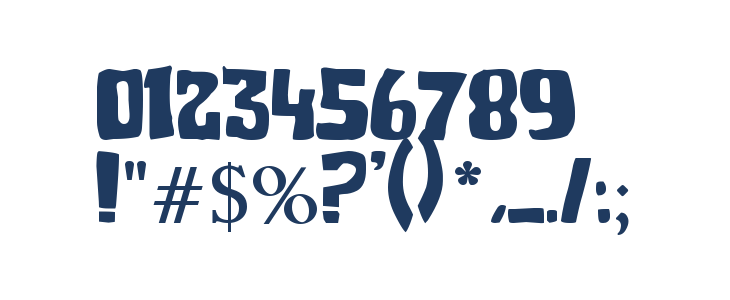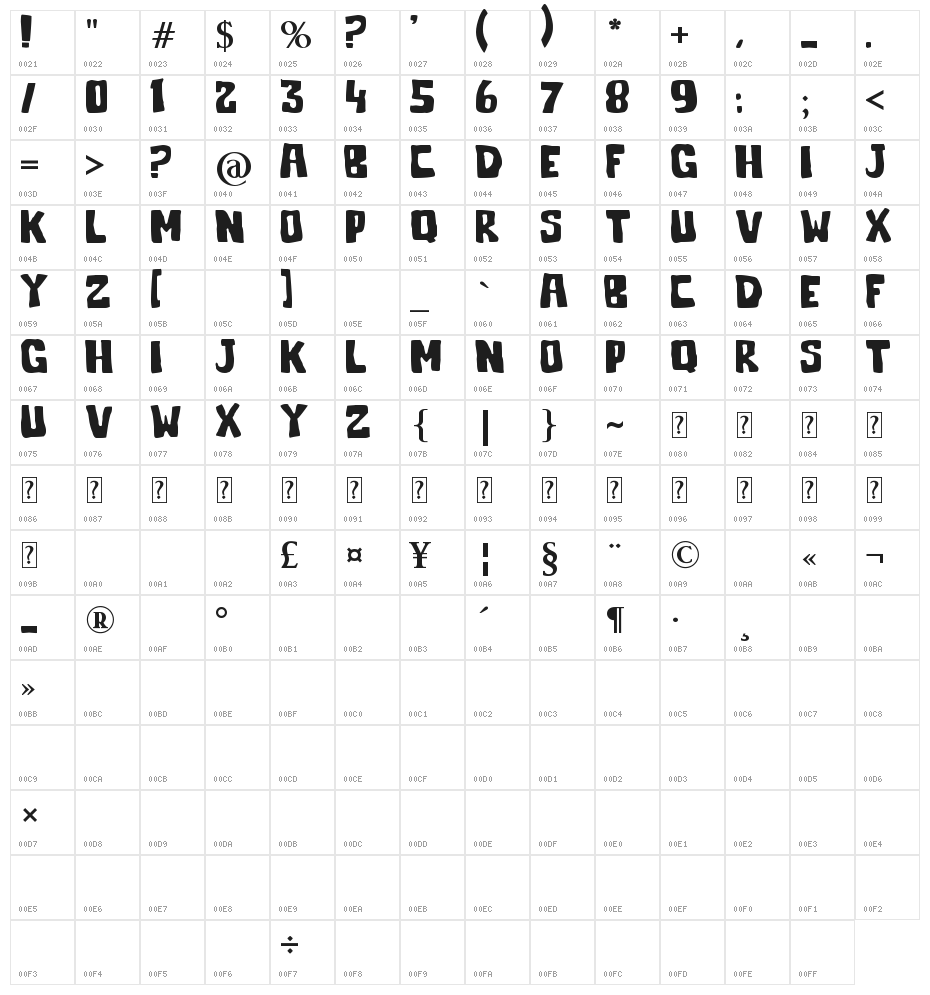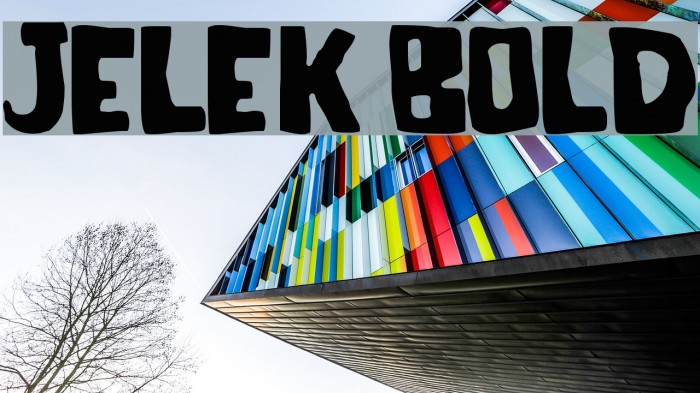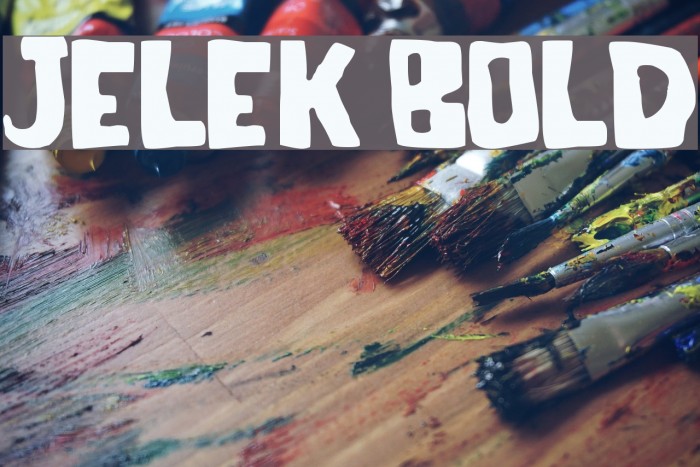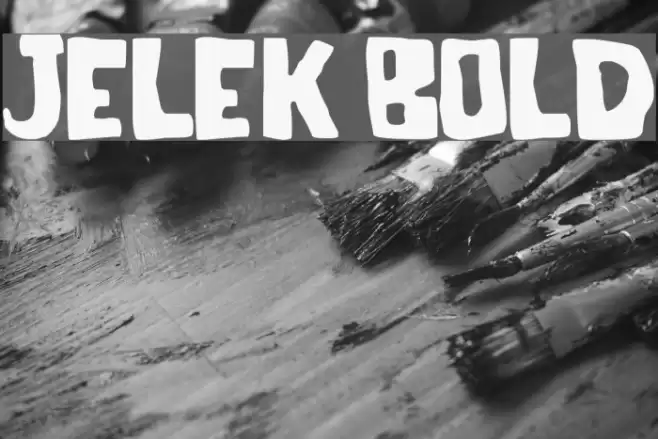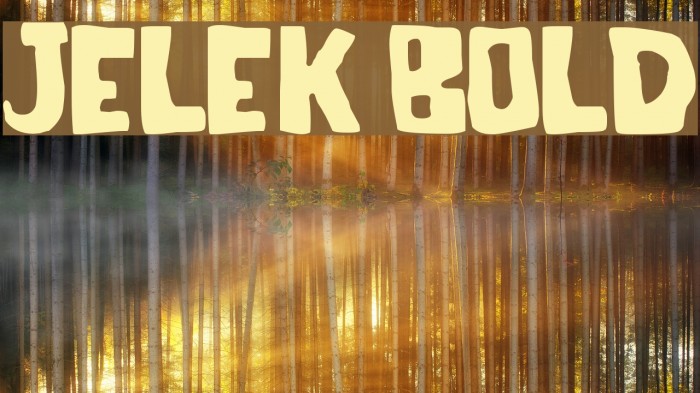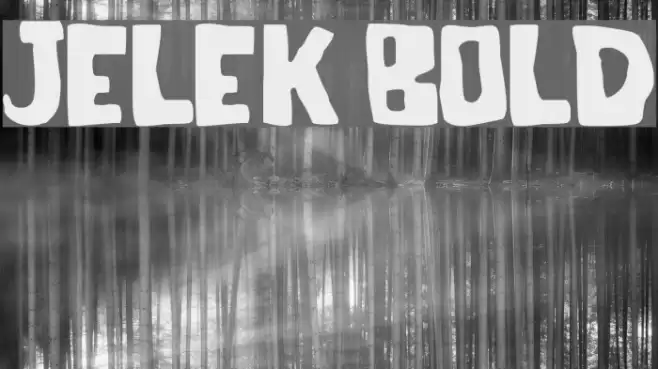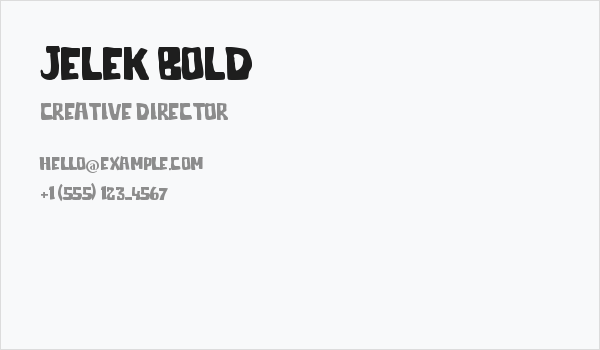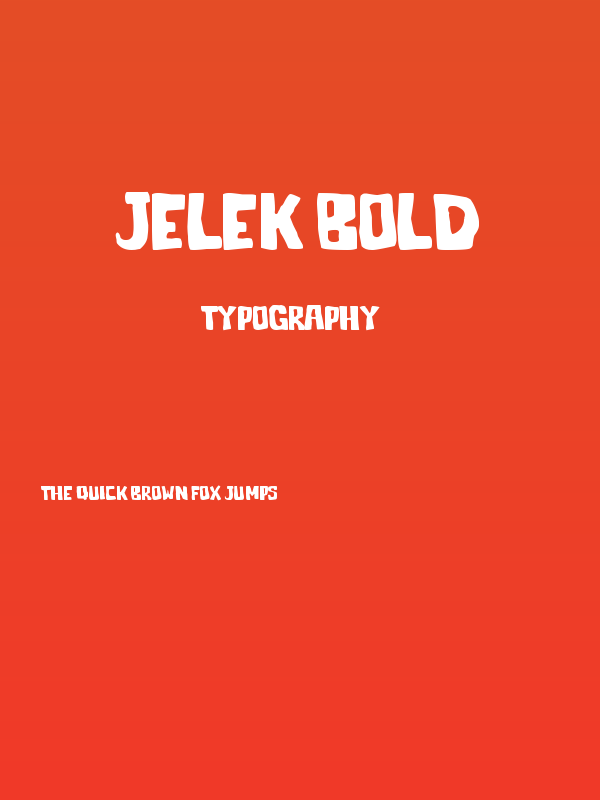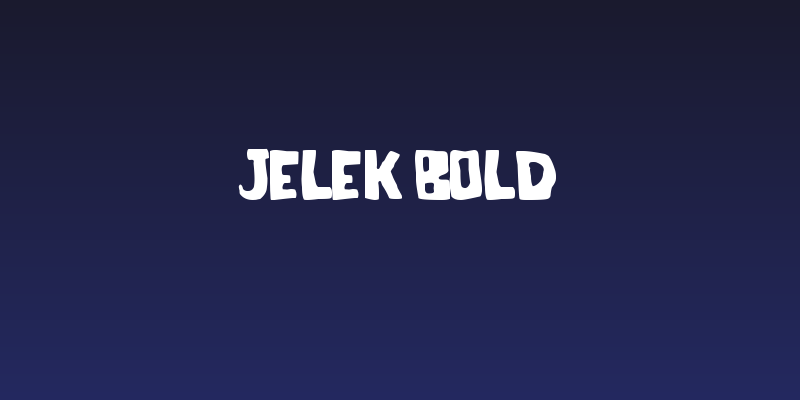
Jelek Bold Font
Jelek Bold Description
This bold and dynamic font features a playful and chunky design, characterized by its thick strokes and slightly irregular shapes. The letters have a hand-drawn appearance, adding a sense of whimsy and creativity. The uppercase and lowercase letters maintain a consistent style, with rounded edges and a bold presence. Numbers and special characters follow the same bold and playful aesthetic, making this font suitable for eye-catching designs. Its unique style makes it ideal for projects that require a fun and engaging visual impact.
| Overall Style | Playful, Creative |
| Proposed Projects | Ideal for children's books, posters, logos, and playful branding materials. |